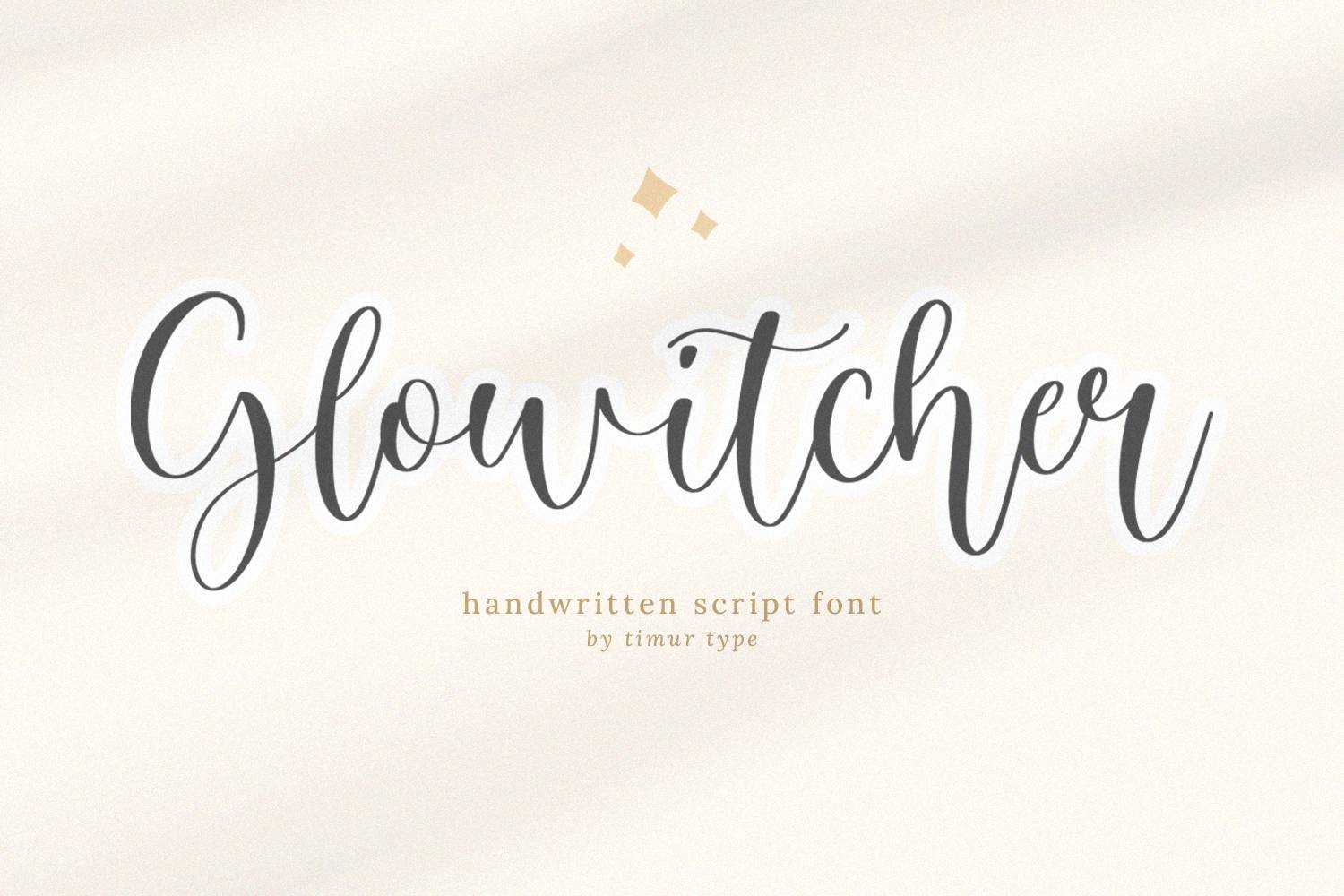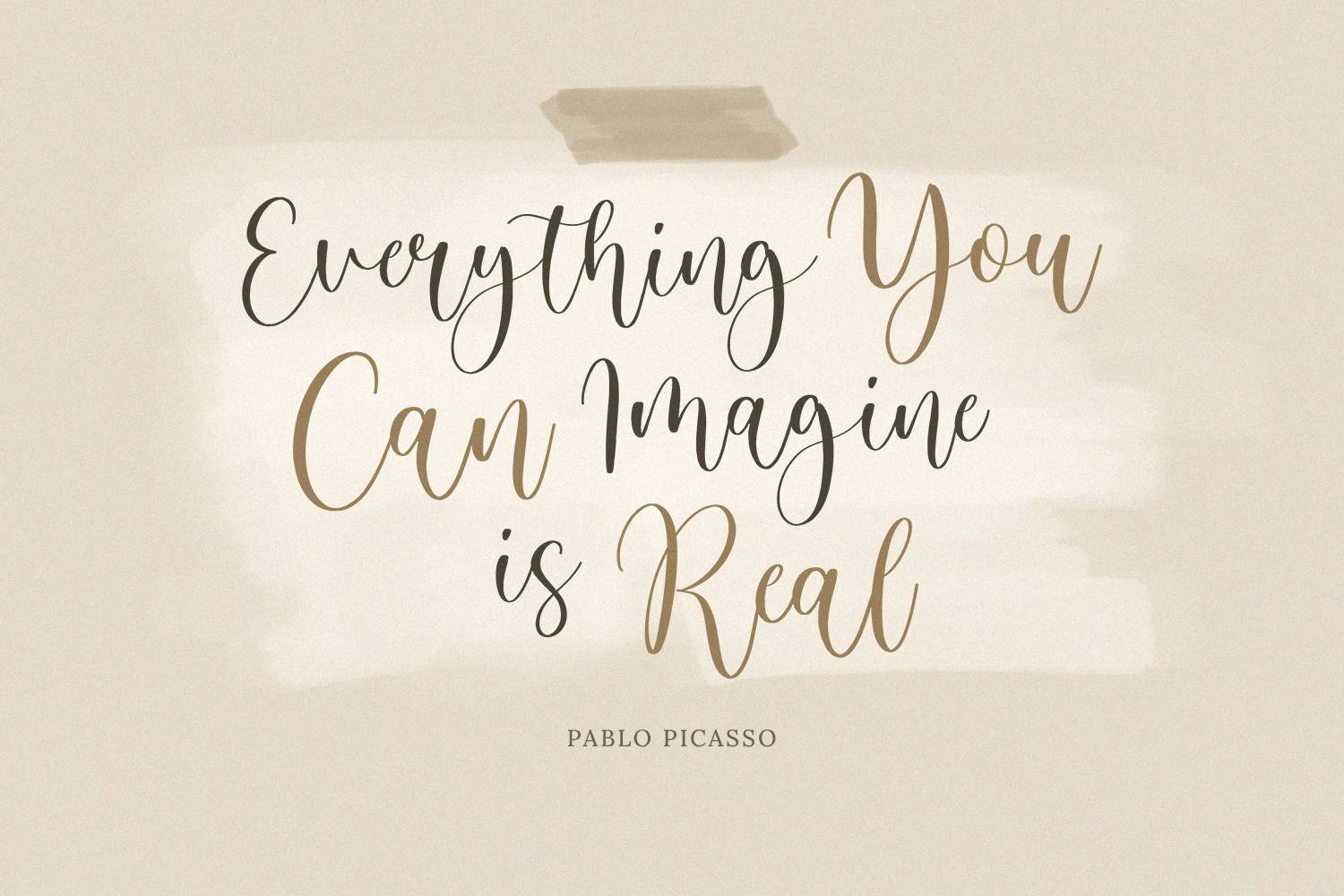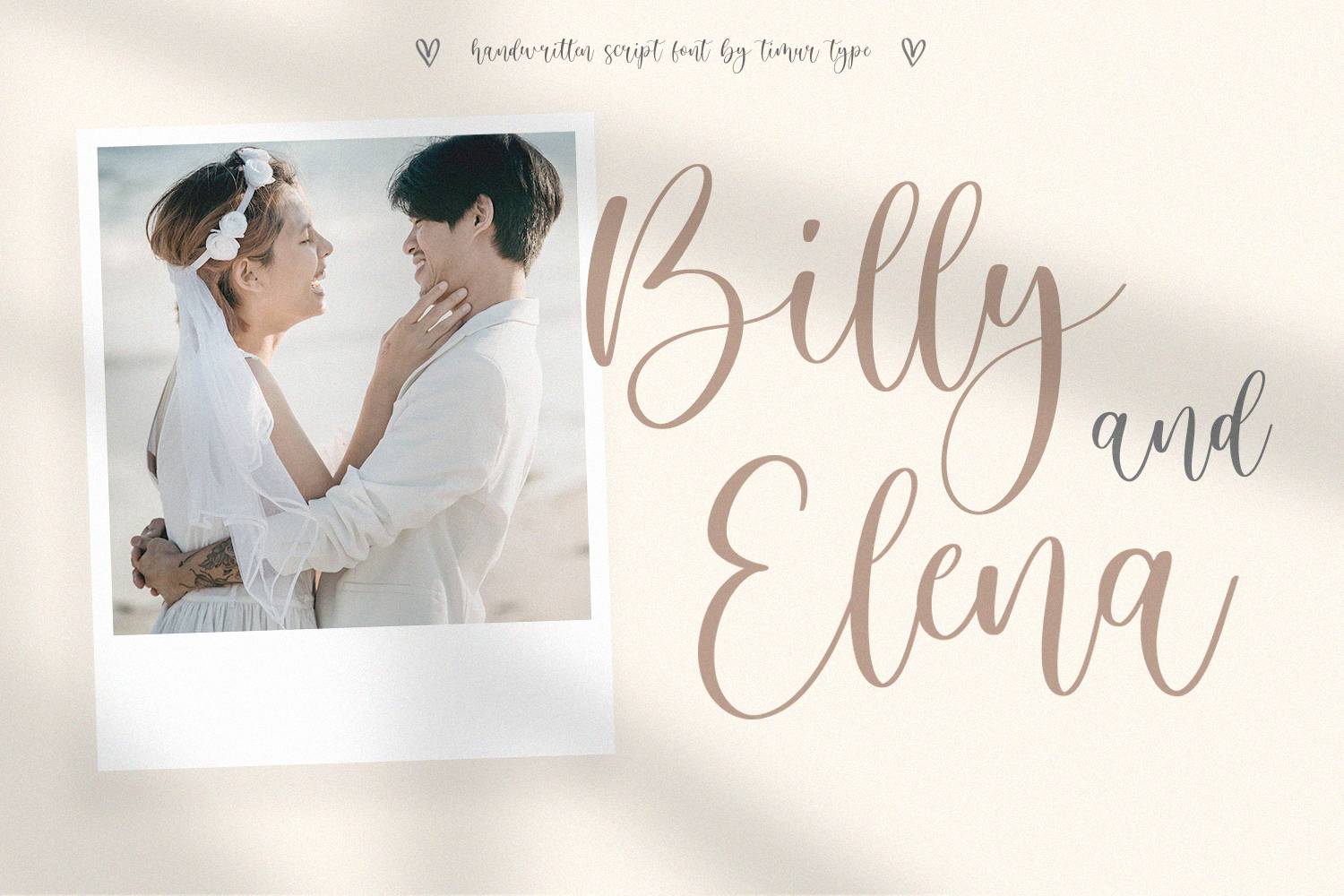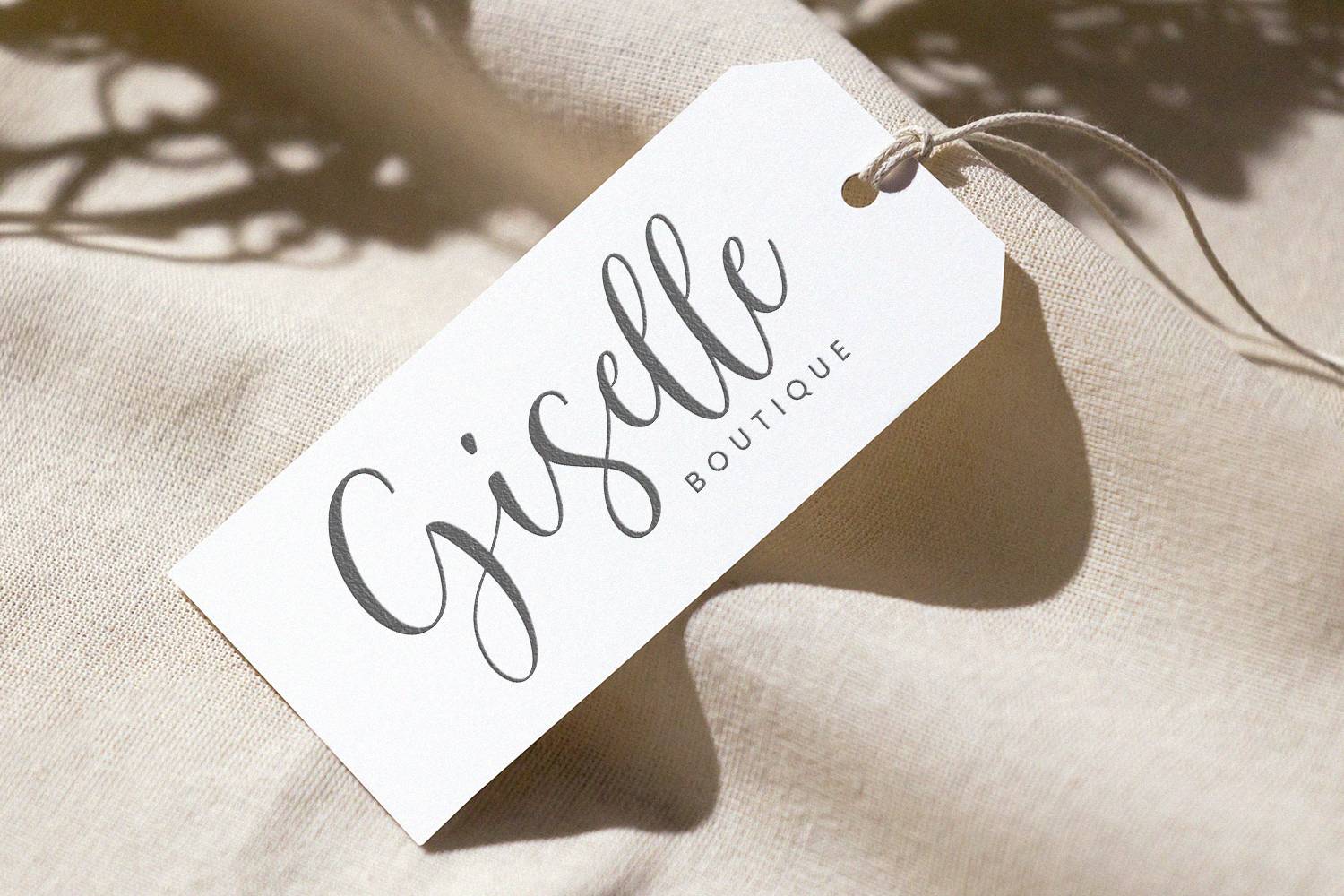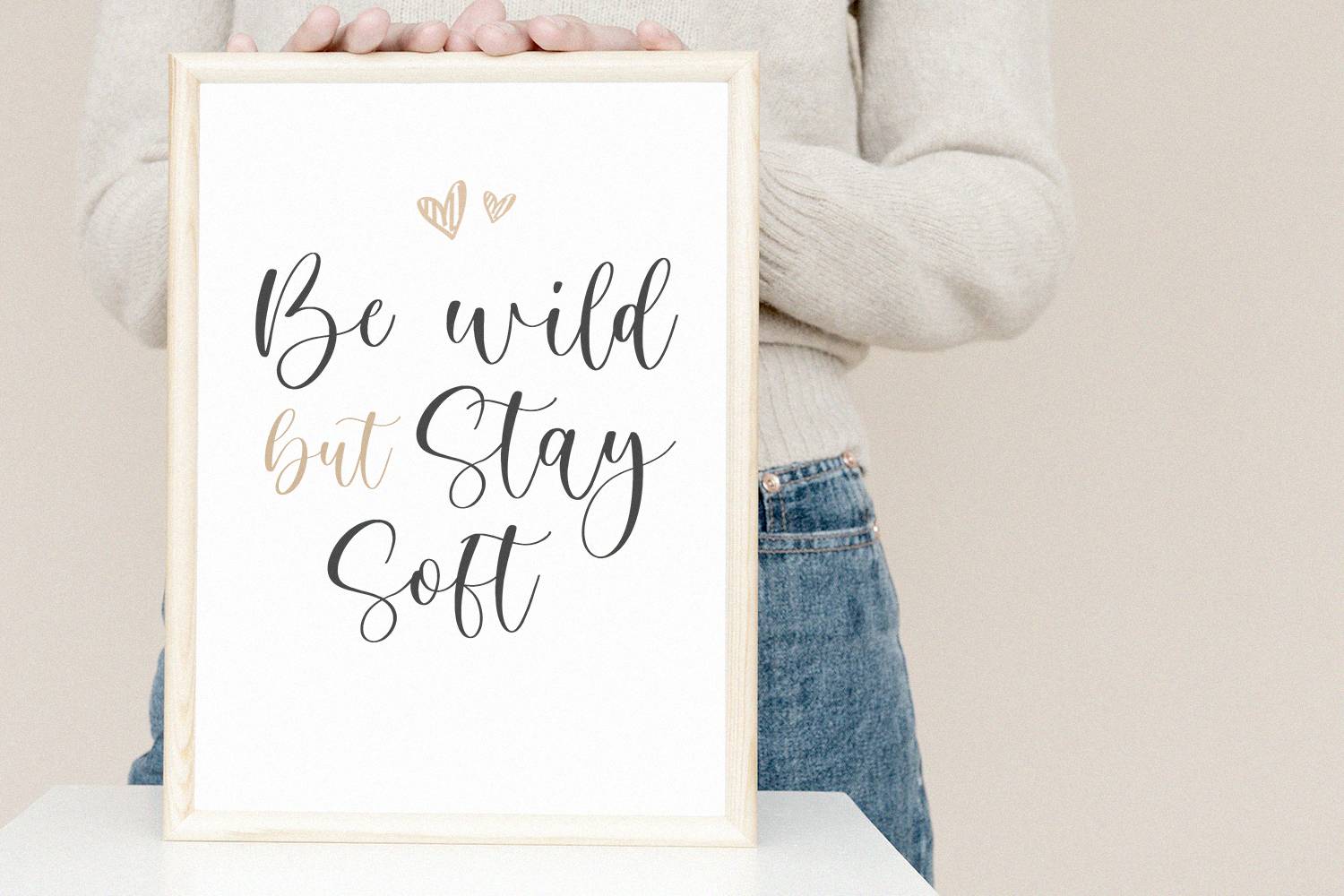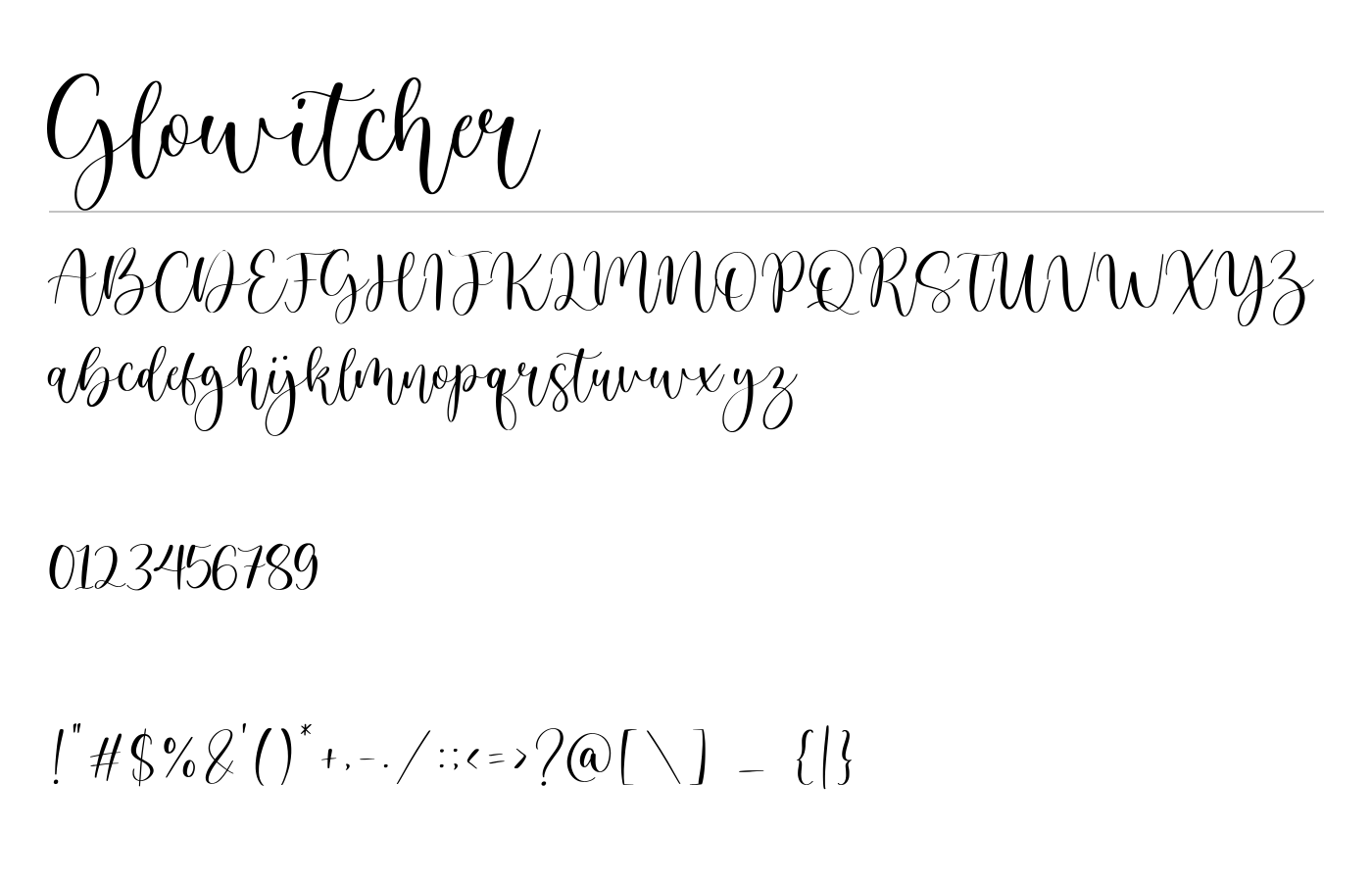
Glowitcher is a delicate and elegant script font featuring slender, flowing strokes and graceful curves that give it a handcrafted, whimsical feel. Its tall, narrow letterforms with varied stroke thicknesses create a sophisticated yet approachable style, ideal for invitations, branding, and decorative text that needs a touch of charm and personality. This font works beautifully in designs seeking a romantic or feminine vibe with a modern handwritten flair.
Glowitcher Font
About Glowitcher Font
| Font family | Glowitcher Font |
| Designer | Timur Type |